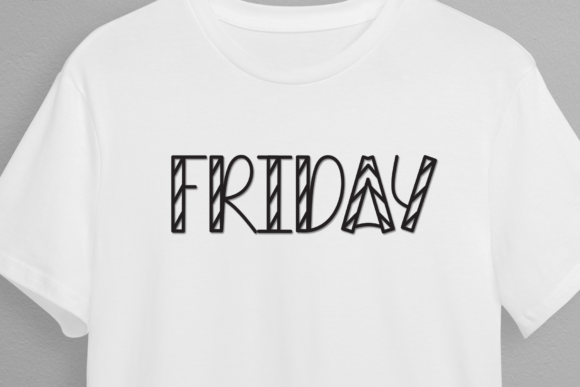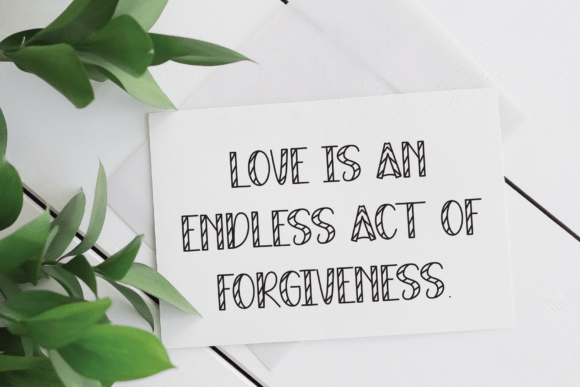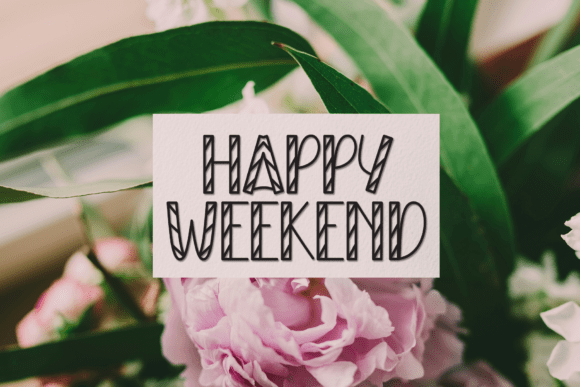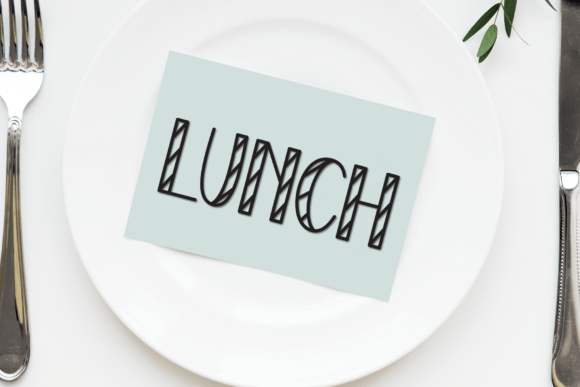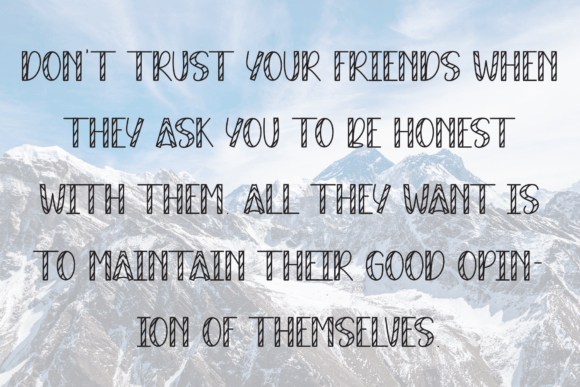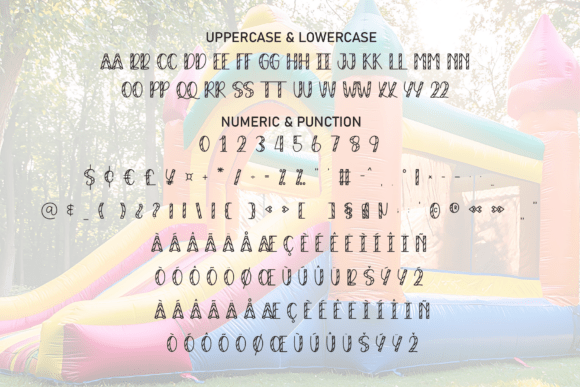
Introducing Bouncing Font: The Sweetest Addition to Your Design Toolkit
Have you ever been in the middle of a design project, and suddenly, you’re stuck on finding the perfect font? I recall a particularly frustrating moment when I was working on a wedding invitation design. My client wanted something that exuded warmth, friendliness, and a touch of whimsy. I scoured the internet, tried out countless fonts, but nothing seemed quite right. That was until I stumbled upon Bouncing Font – a charming handwritten display font that instantly captured the essence of what I was looking for.
The Delightful Dance of Letters
Bouncing Font is aptly described as cute and delightful, making it an ideal choice for transforming wedding invitations, greeting cards, or any creative design that calls for a delightful touch. This font isn’t just a collection of letters; it’s a playful tale ready to unfold on your designs. Its friendly vibe is as sweet as sugar and as uplifting as a fun-filled day, making it perfect for designers, crafters, and creative hobbyists alike.
- ✨ Its playful and whimsical feel adds a touch of magic to any design
- ✅ The font is highly legible, even at smaller sizes
- 💕 The range of OpenType features, including glyphs and stylistic alternates, offers endless creative possibilities
- 🎉 It’s incredibly versatile and can be used for a wide range of design projects
While Bouncing Font is an excellent choice for many design projects, there are a few minor quirks to be aware of:
- 🤔 Some of the more intricate glyphs and stylistic alternates may not display correctly on older systems or certain software
- ⚠️ The font’s playful nature may not be suitable for more formal or corporate designs
The Designer Inspiration Behind Bouncing Font
While the true story behind Bouncing Font’s creation may be unknown, it’s easy to imagine a designer who wanted to capture the essence of playfulness and friendliness in a font. Perhaps they drew inspiration from childhood memories of handwritten letters, or the joy of creating art with colorful markers. Whatever the inspiration, Bouncing Font is a testament to the power of creative expression.